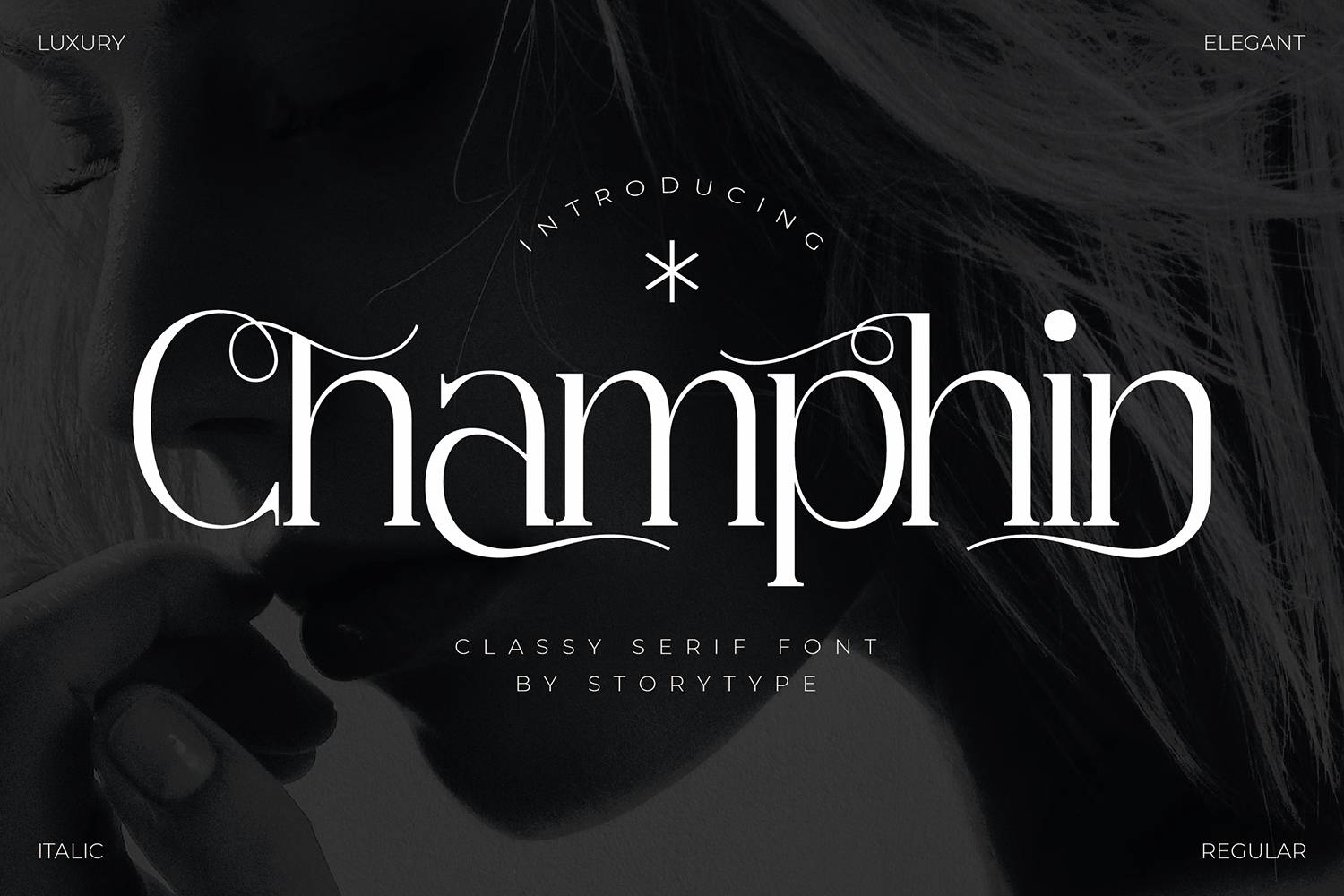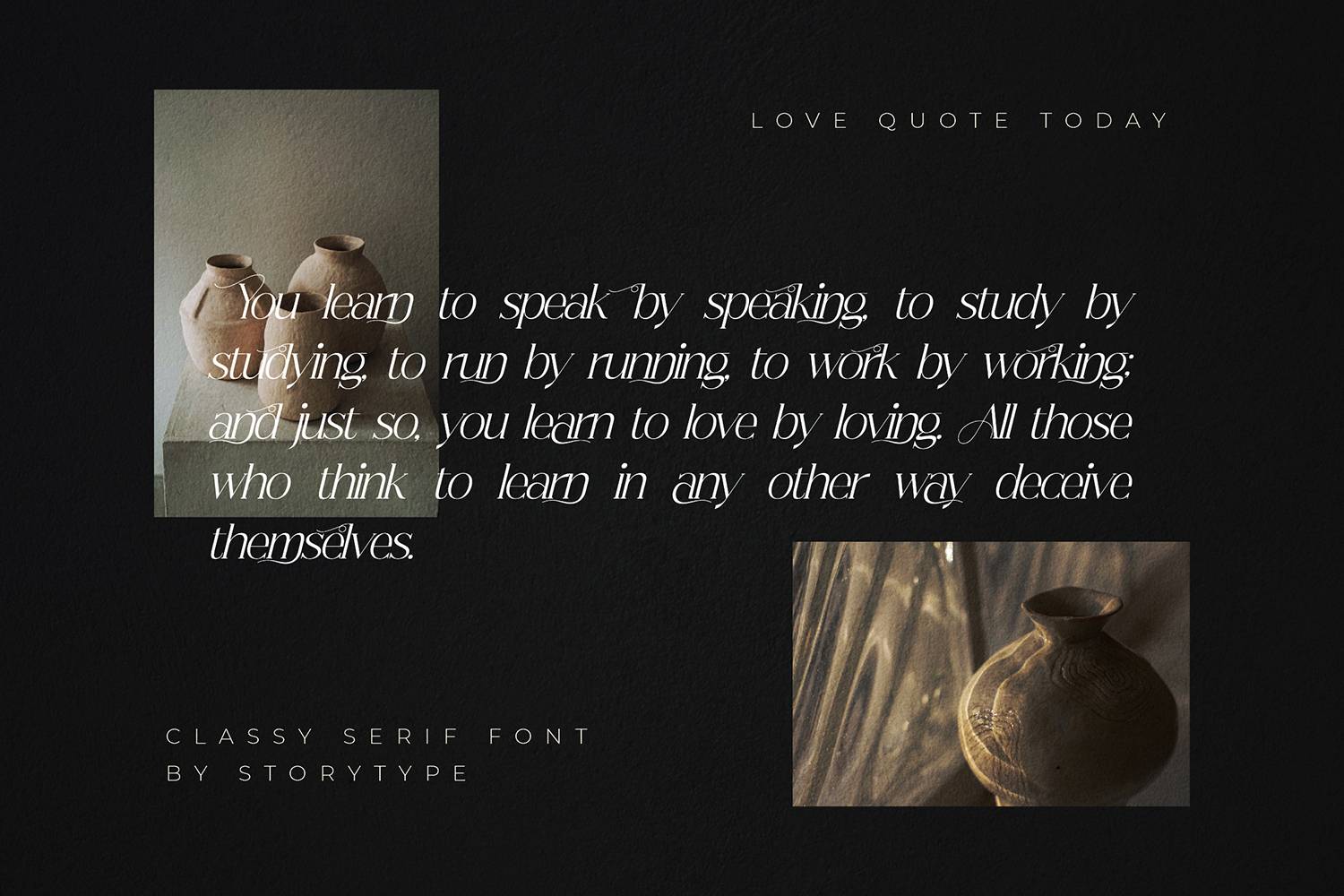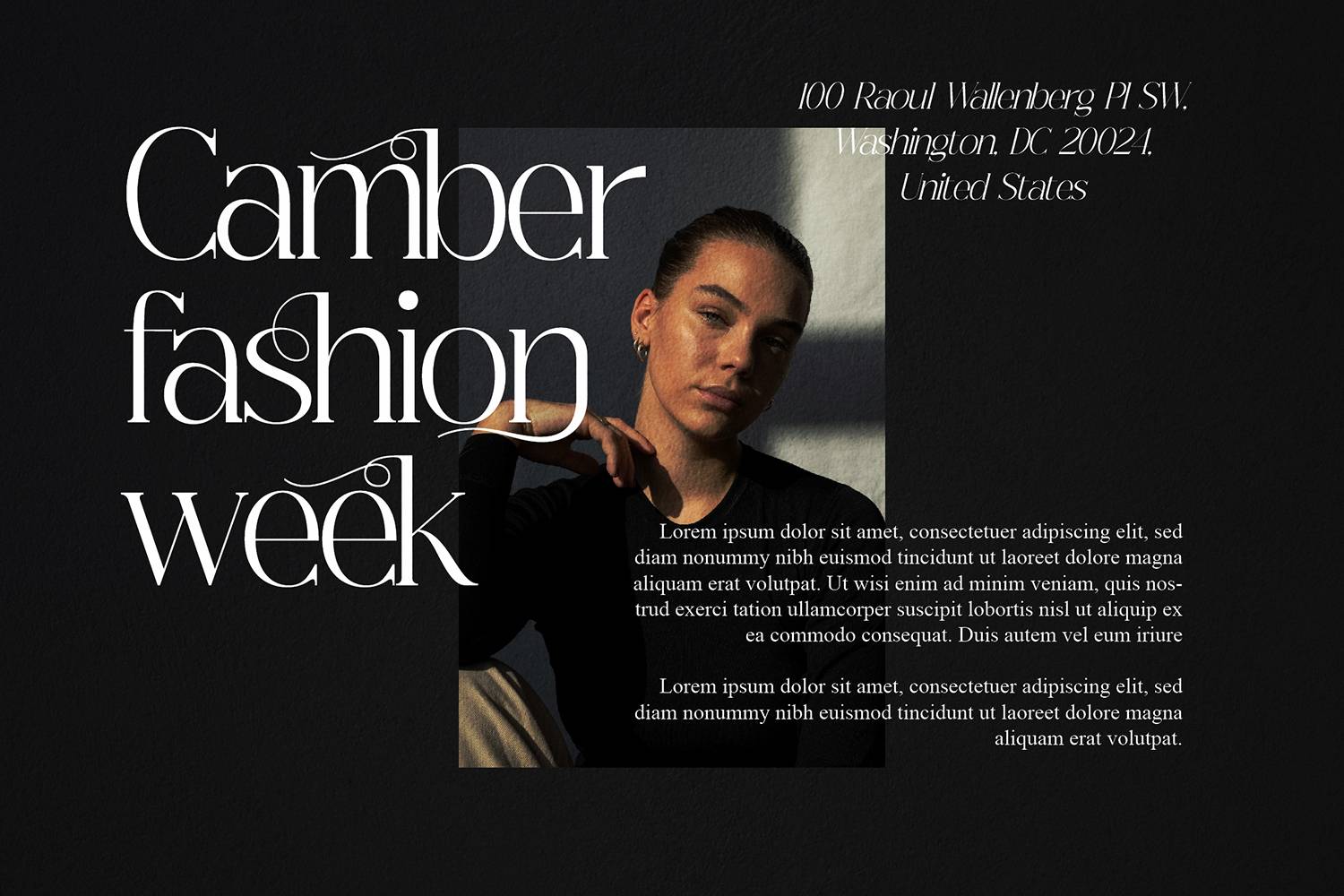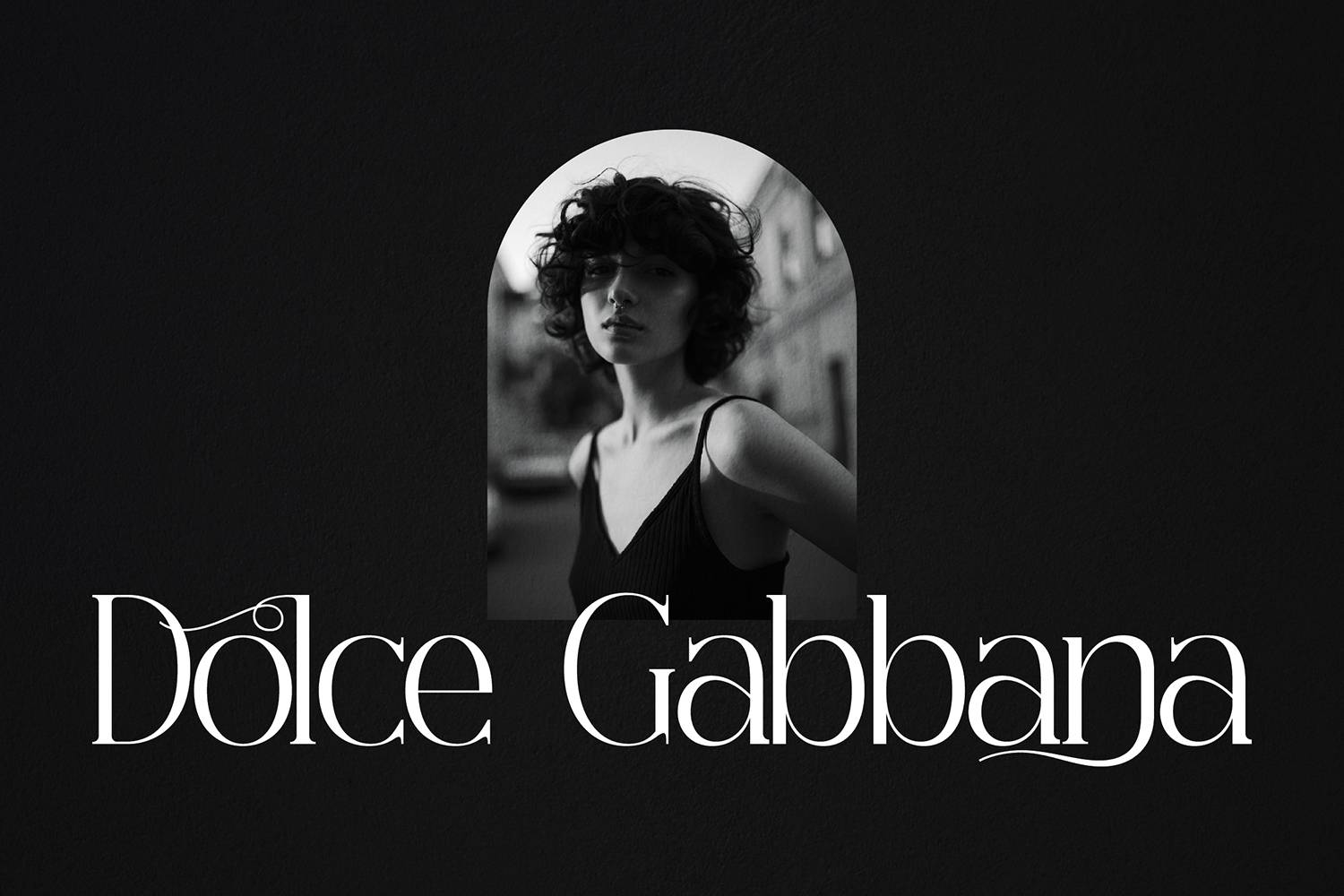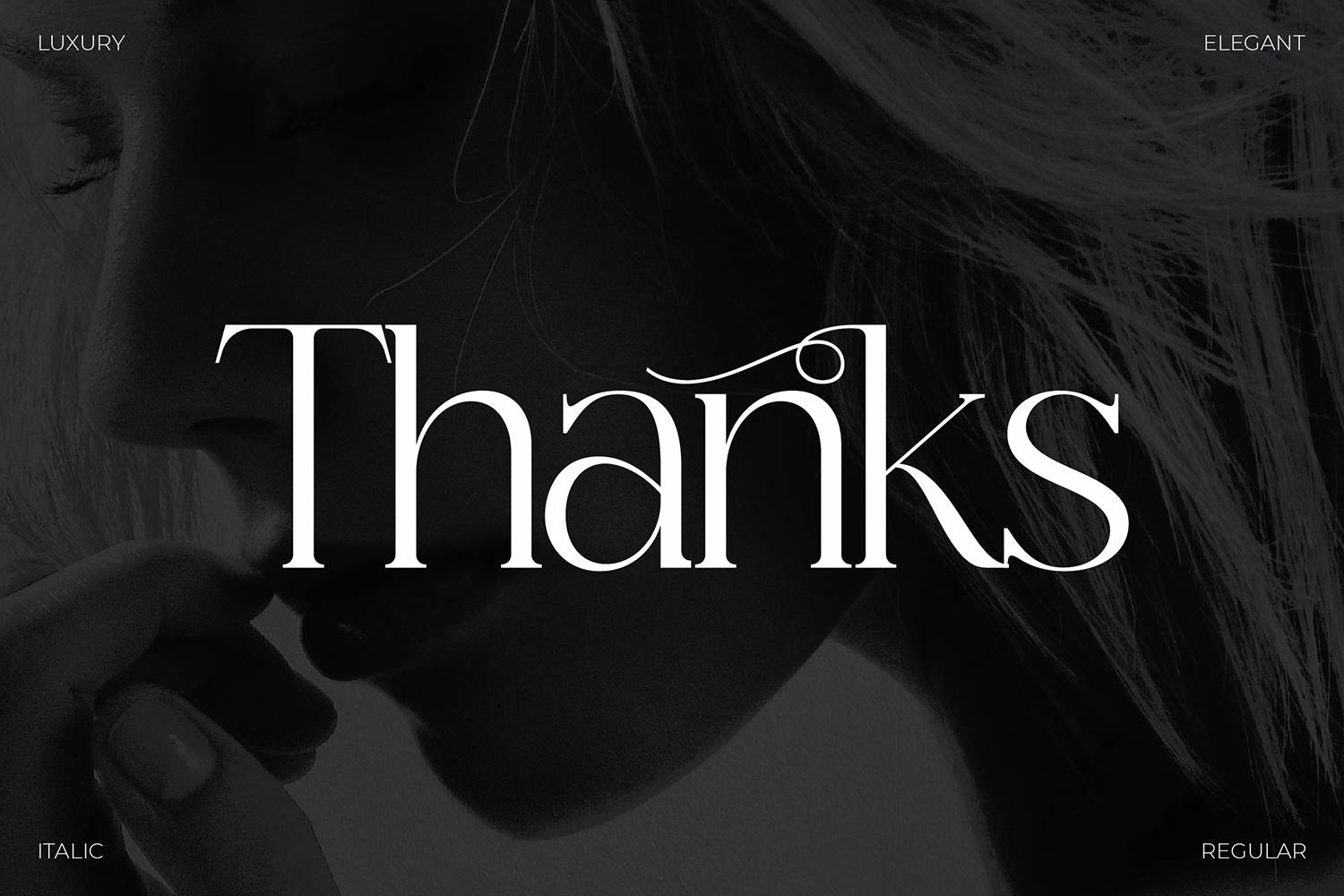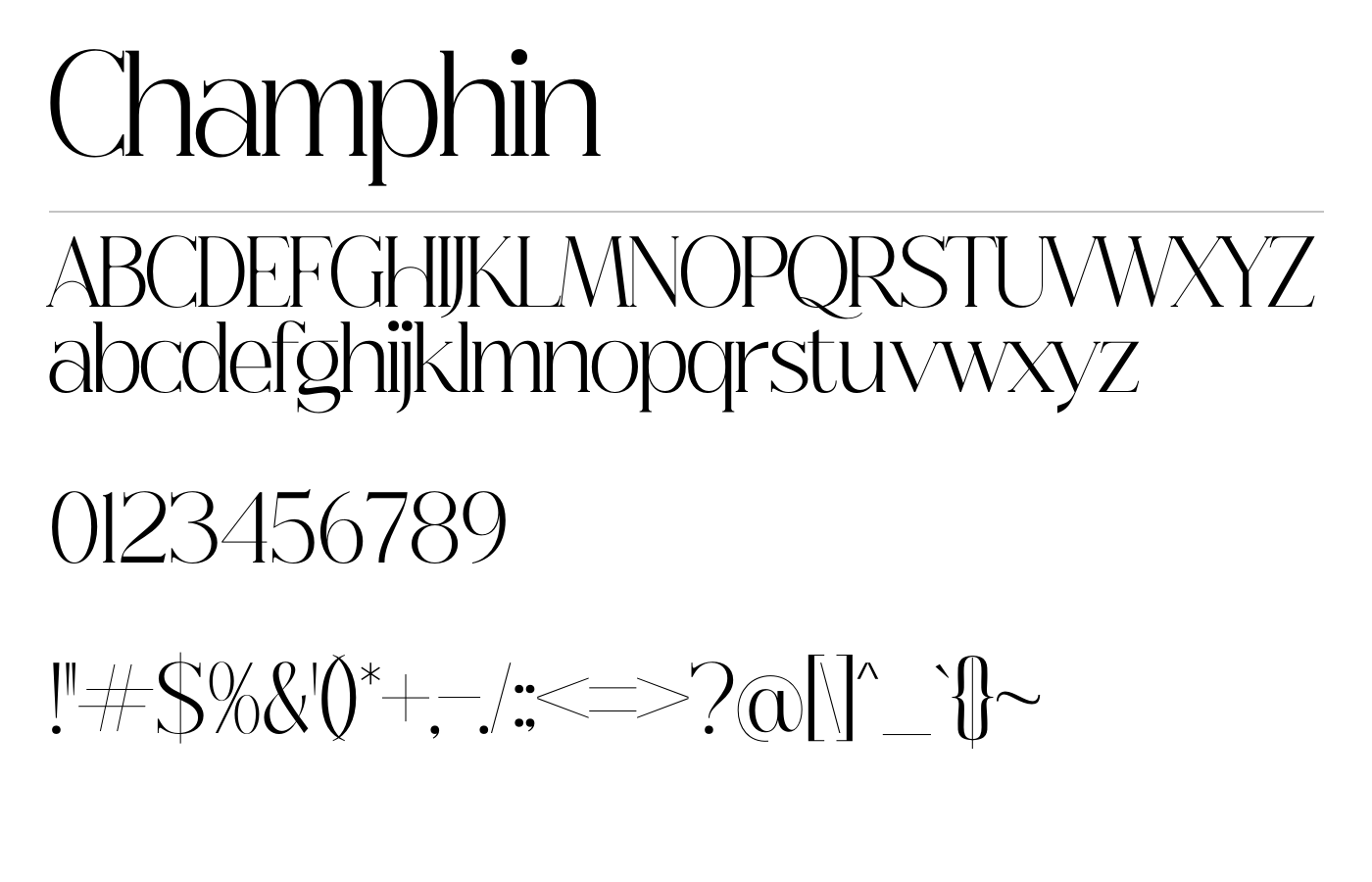
Champhin is an elegant serif font characterized by its tall, slender letterforms and high contrast between thick and thin strokes, giving it a refined and sophisticated appearance. Its delicate, sharply defined serifs and distinctive features like the unique tail on the Q and double-story g make it ideal for luxury branding, fashion editorials, and upscale headlines where a touch of classic modernity is desired. This font works best in large sizes, lending an air of exclusivity and style to designs that require a graceful yet contemporary serif look.
Champhin Font
About Champhin Font